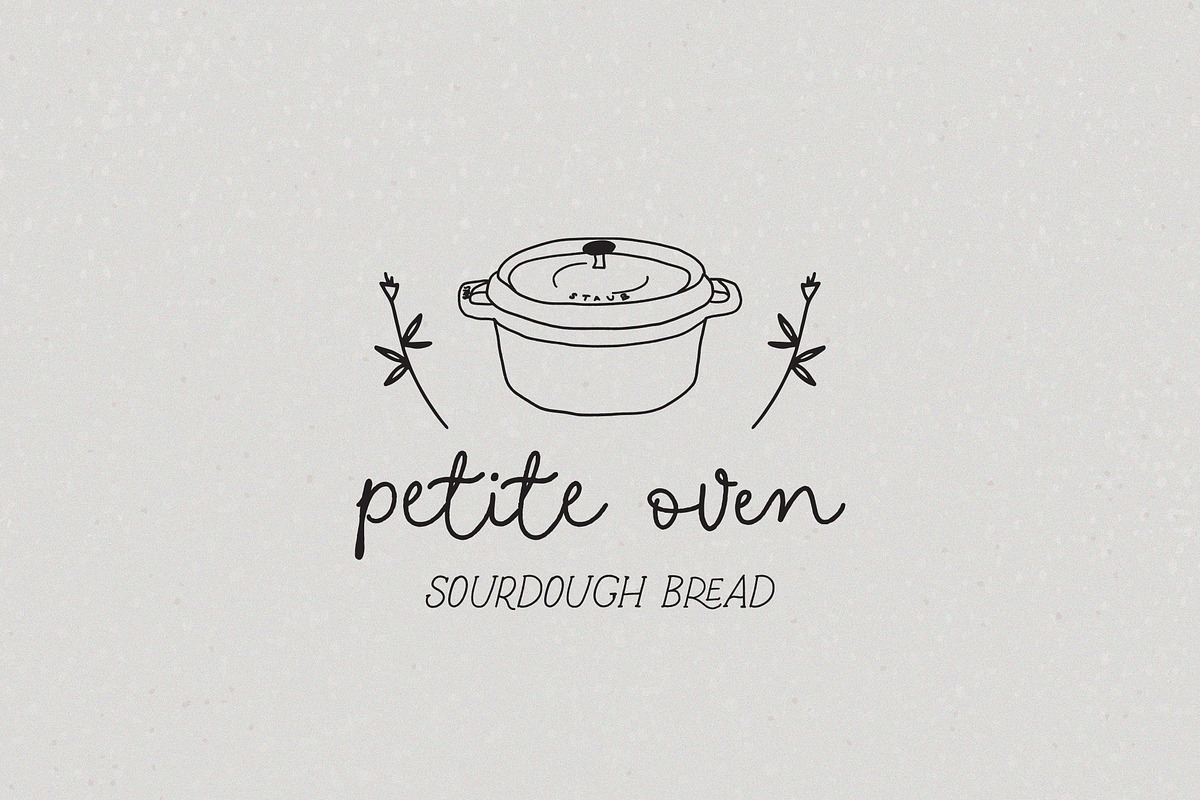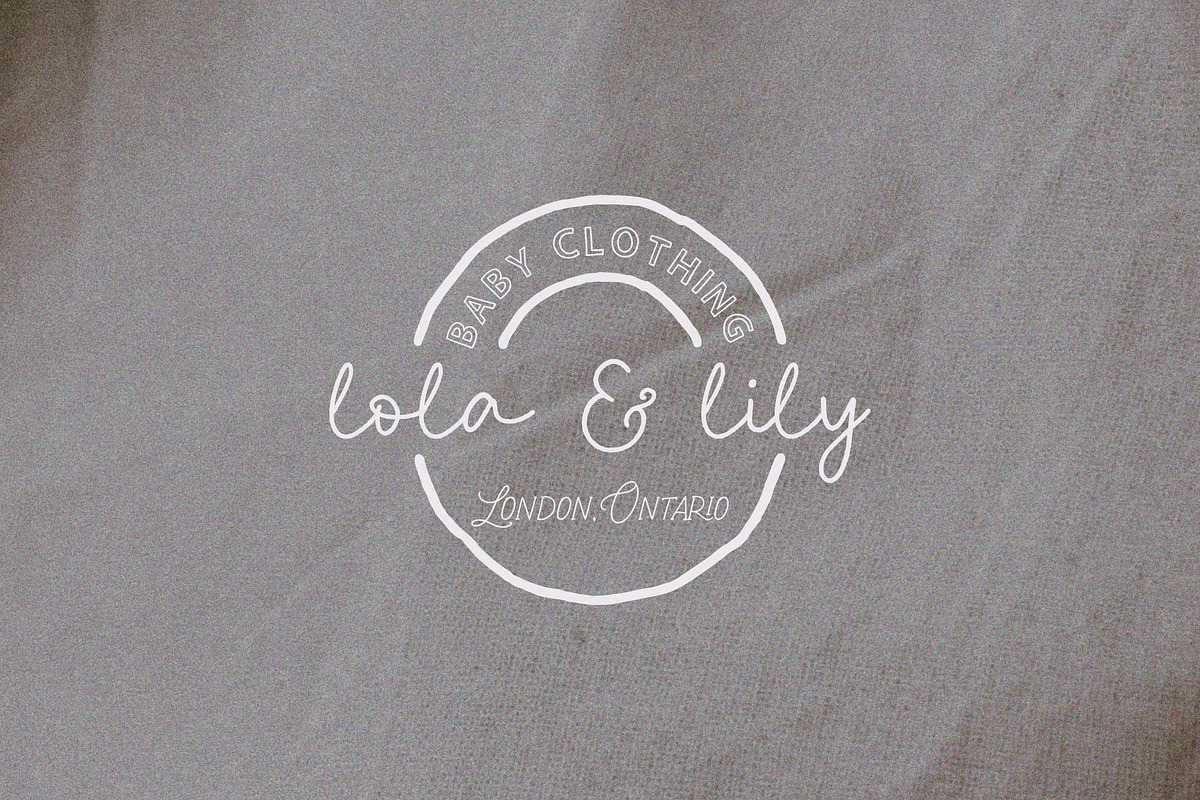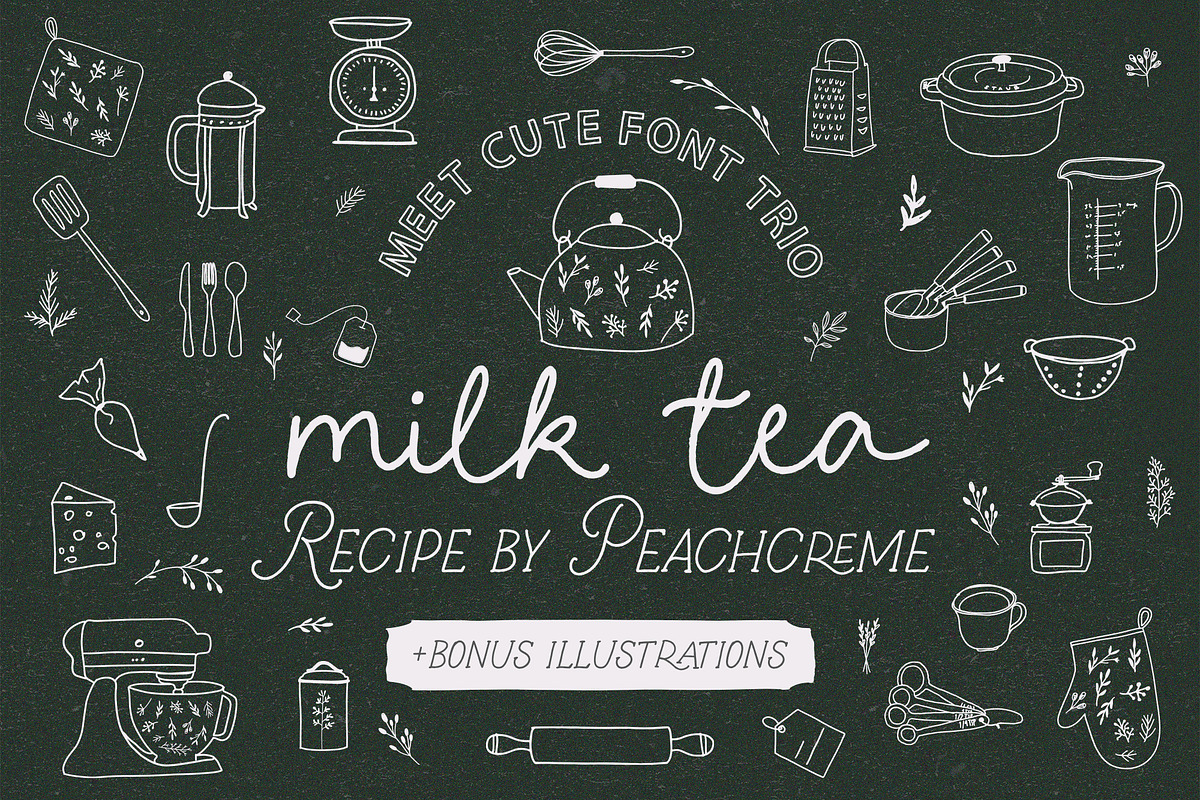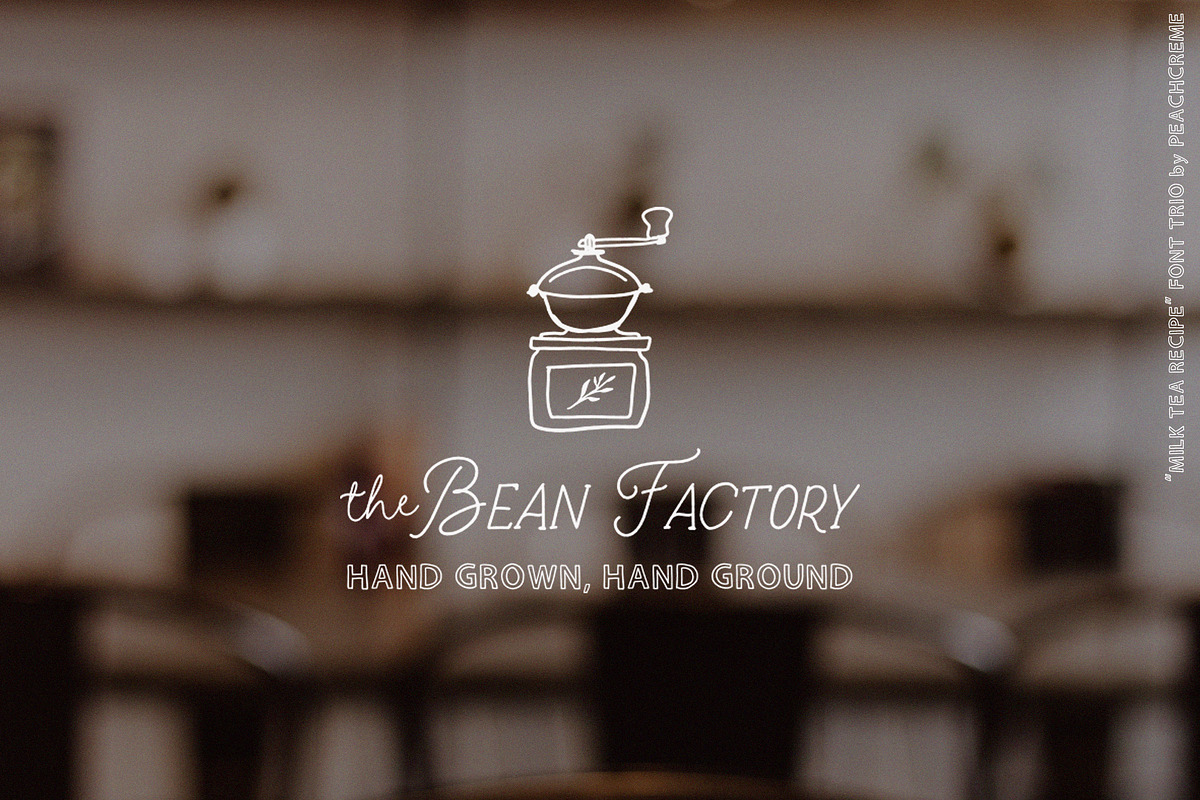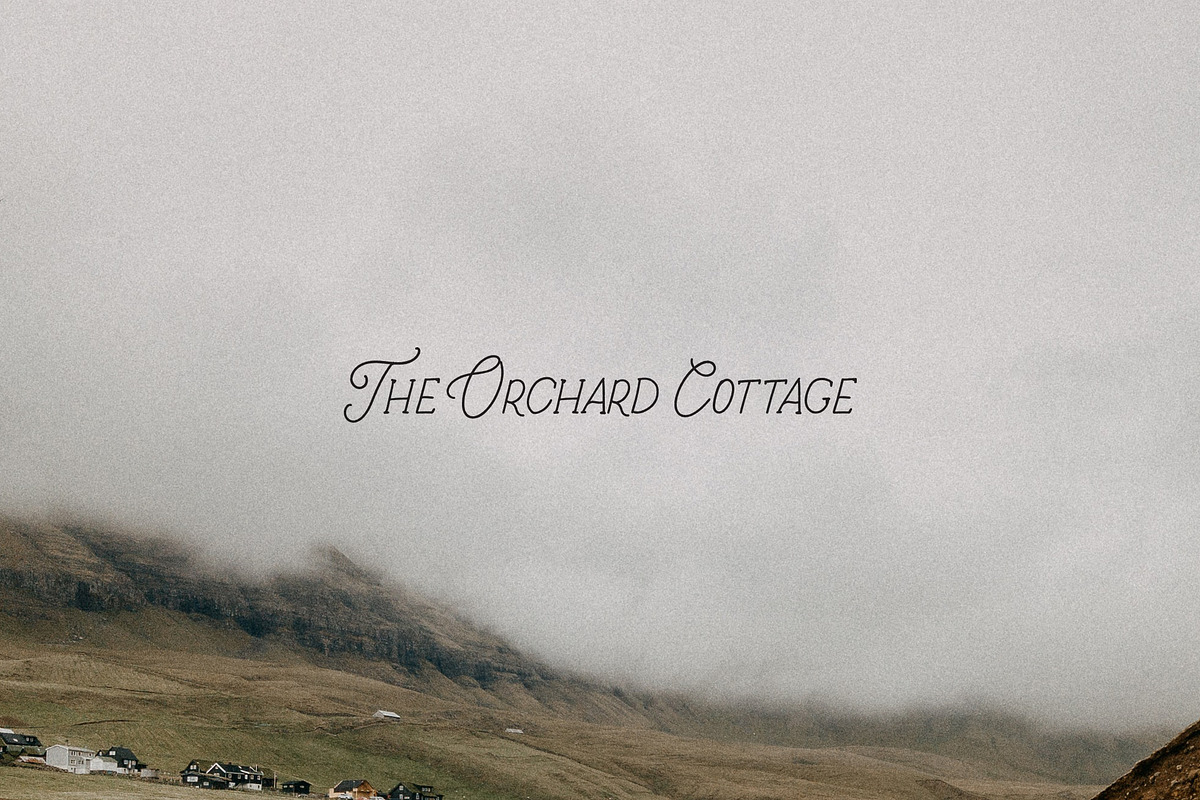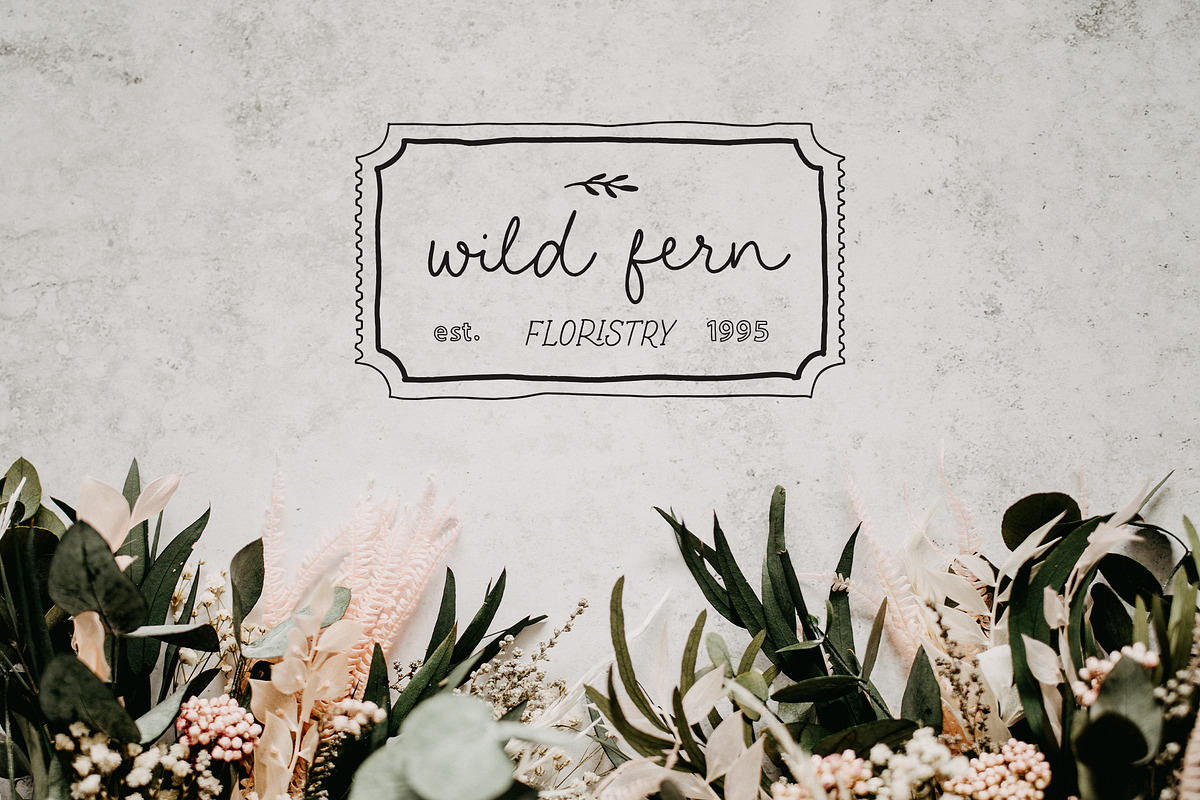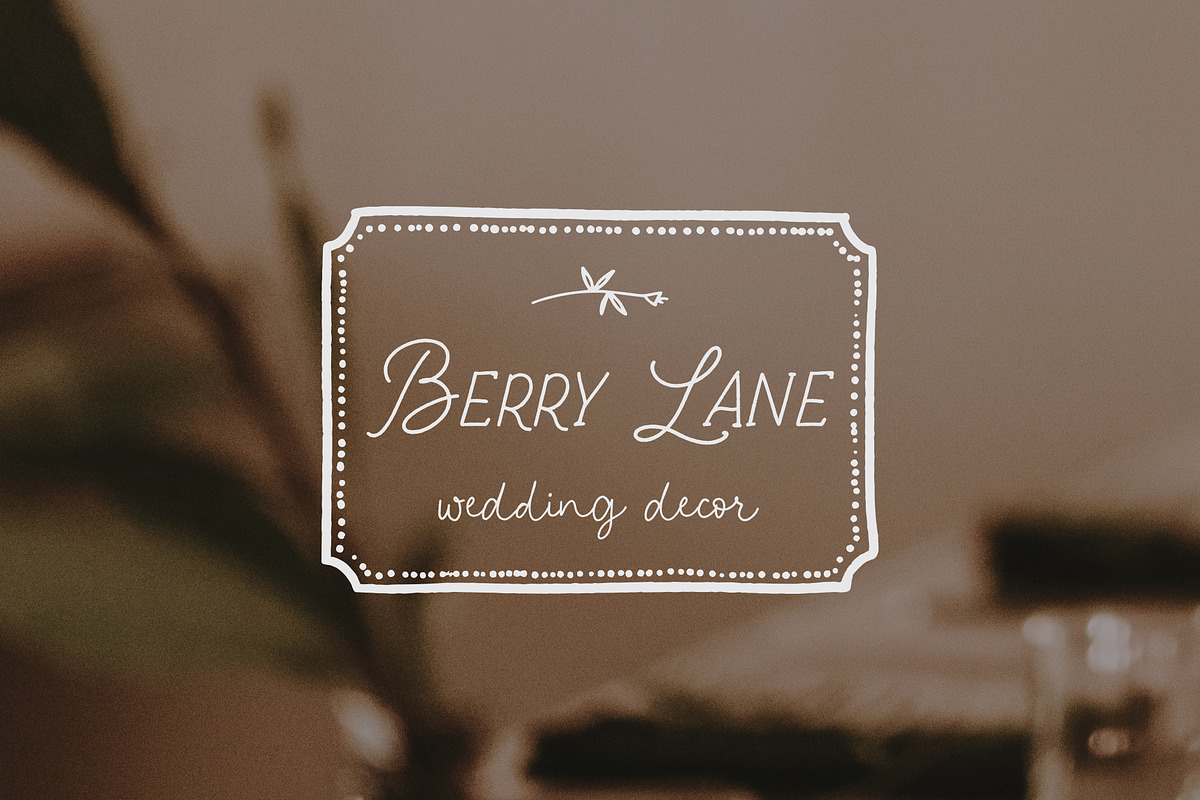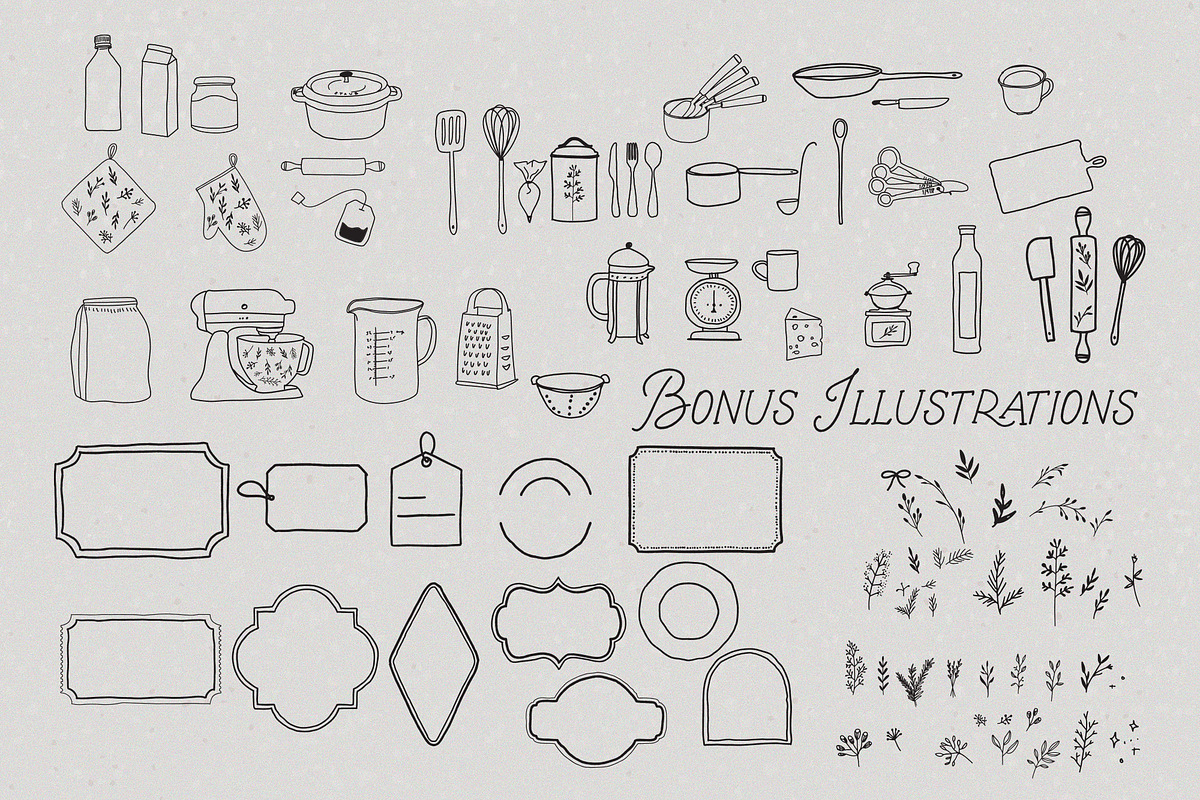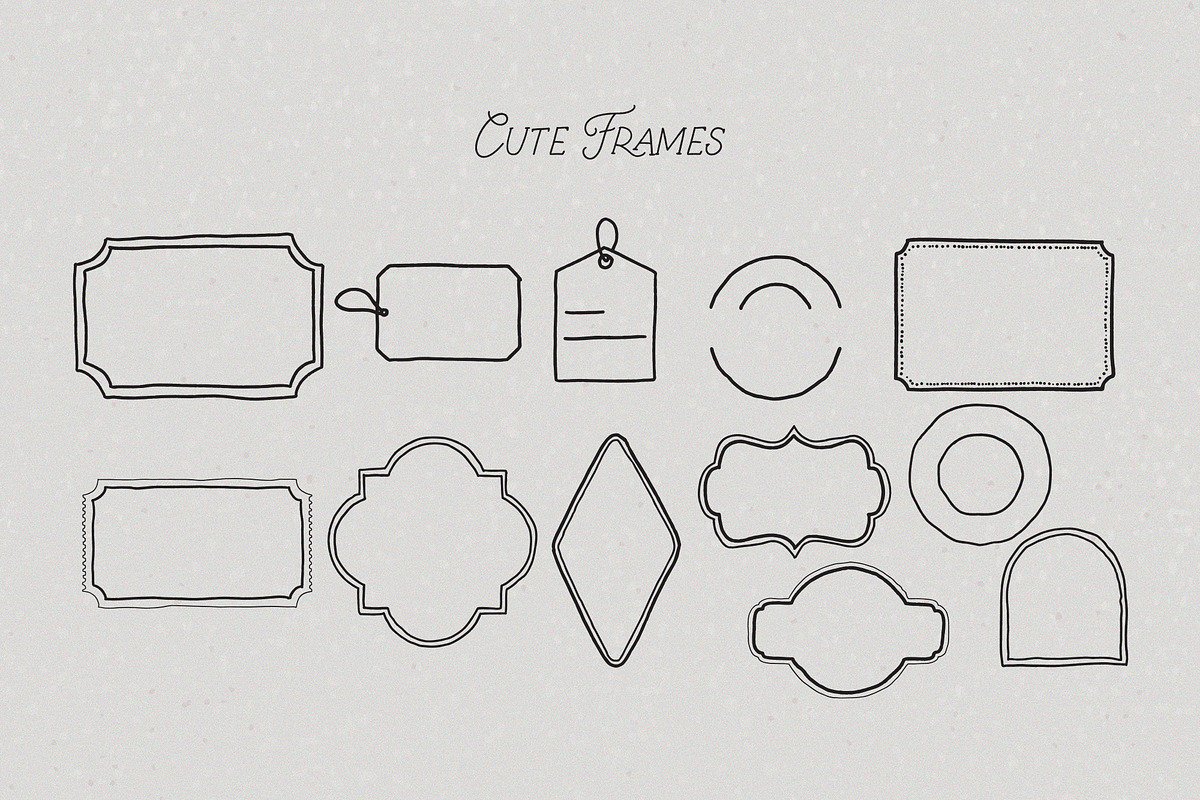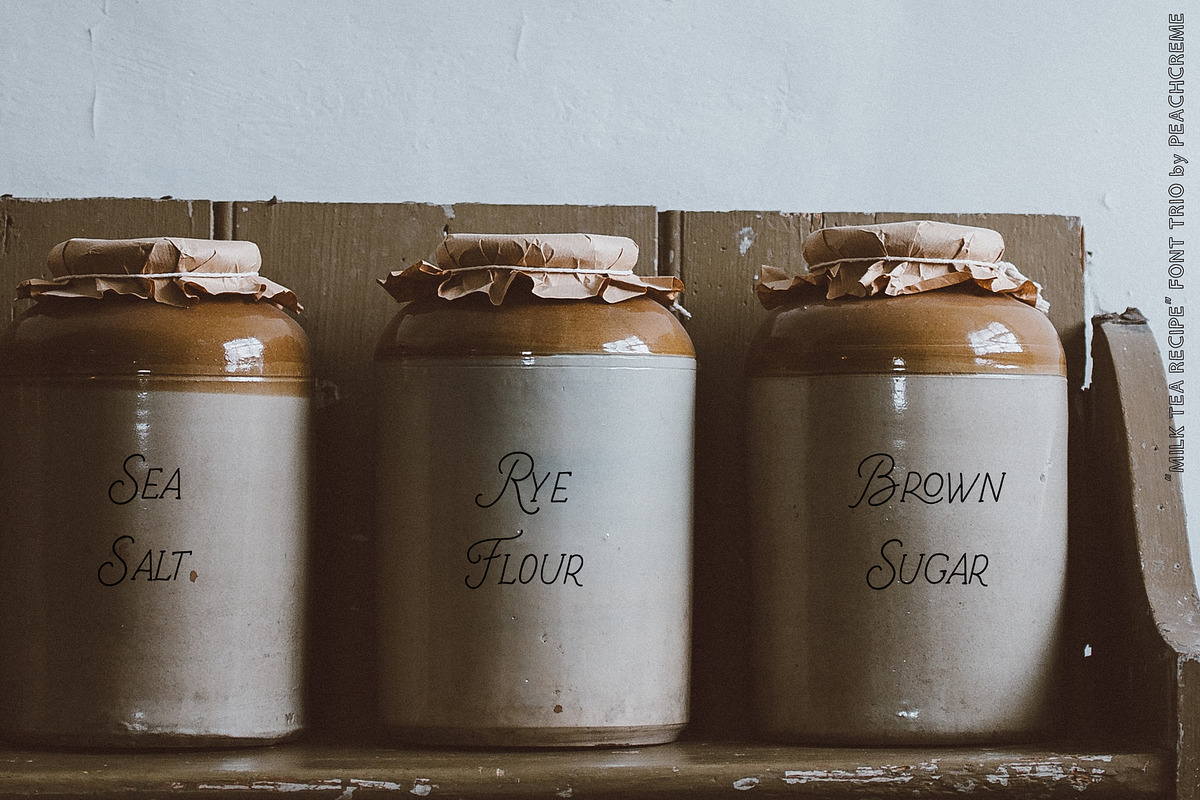
Milk Tea Recipe // FONT TRIO+GRAPHIC
Say hi to our new font trio pack with cute illustrations "Milk Tea Recipe". This would be perfect for recipes, cards, branding projects with farmhouse aesthetics.
Includes three fonts and lots of matching style illustrations.